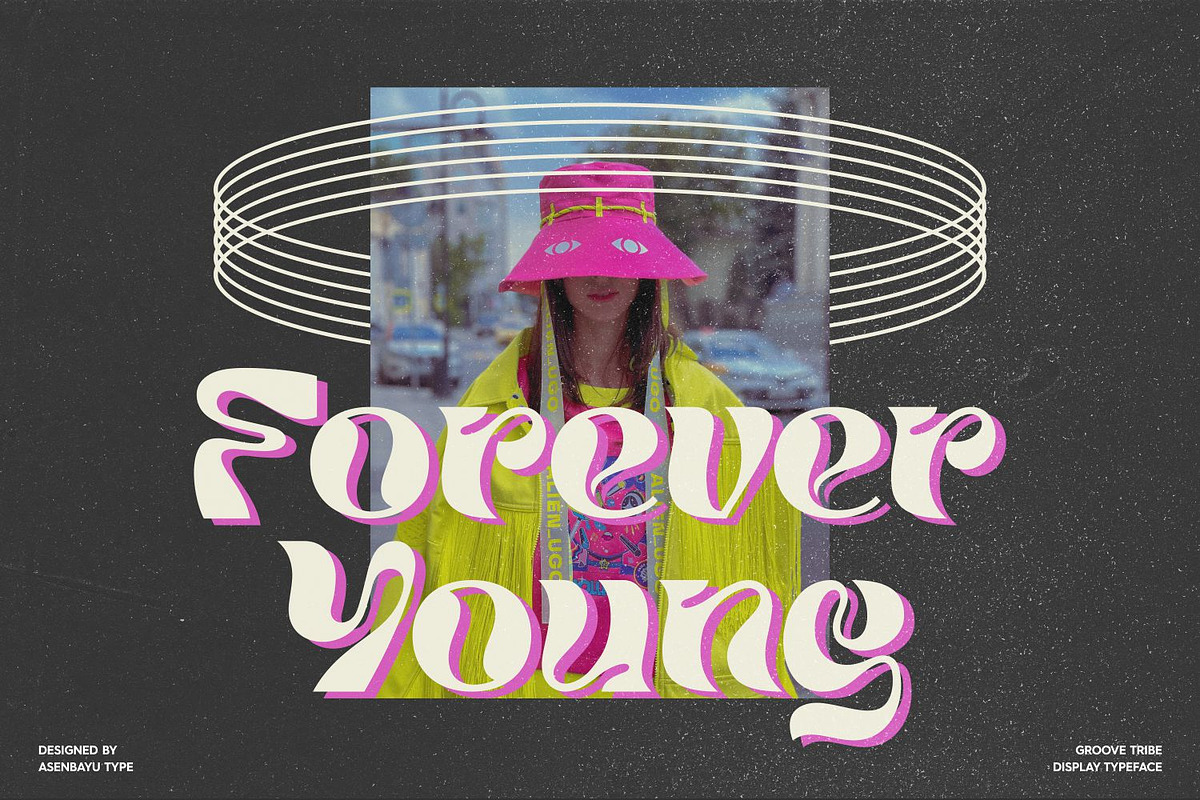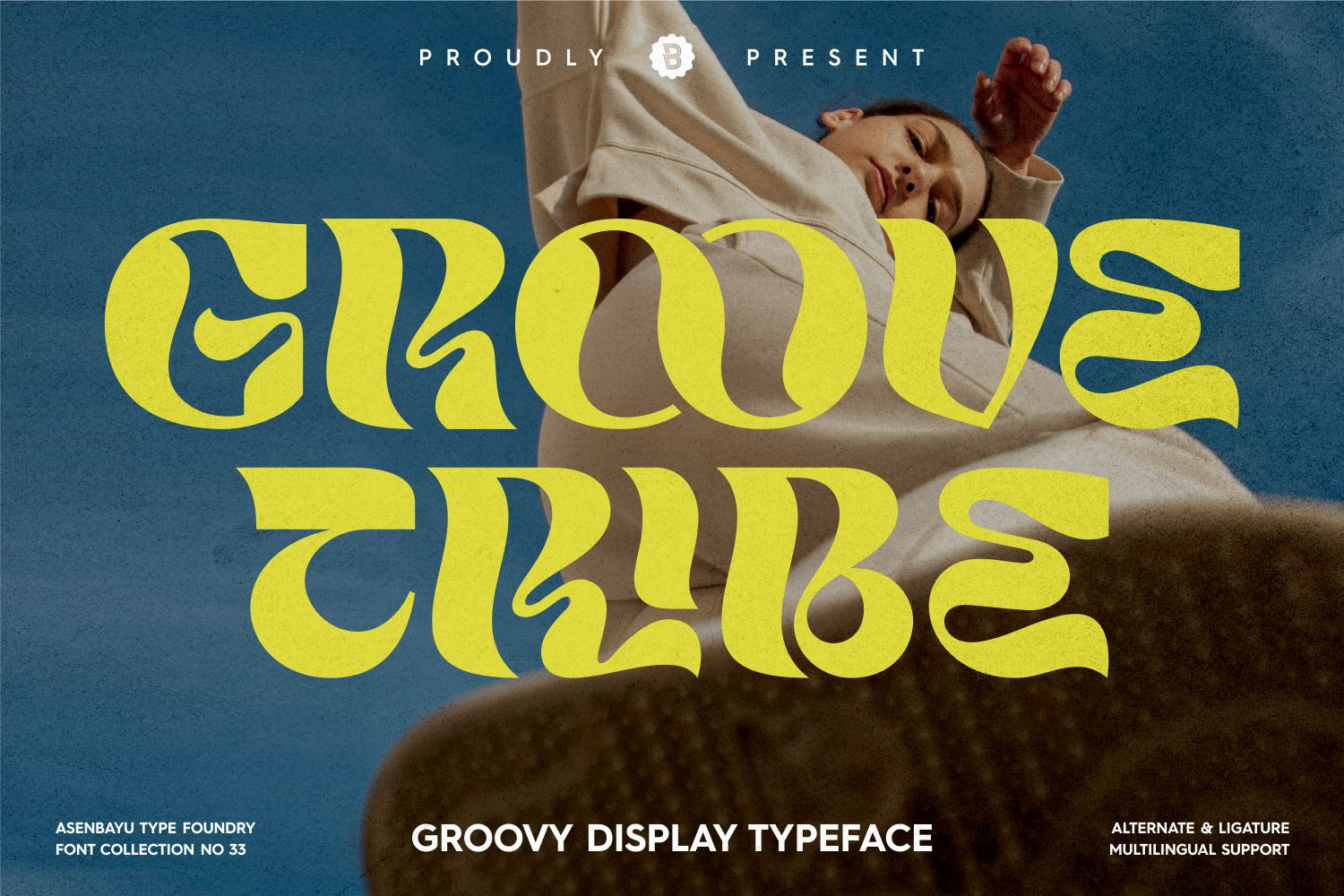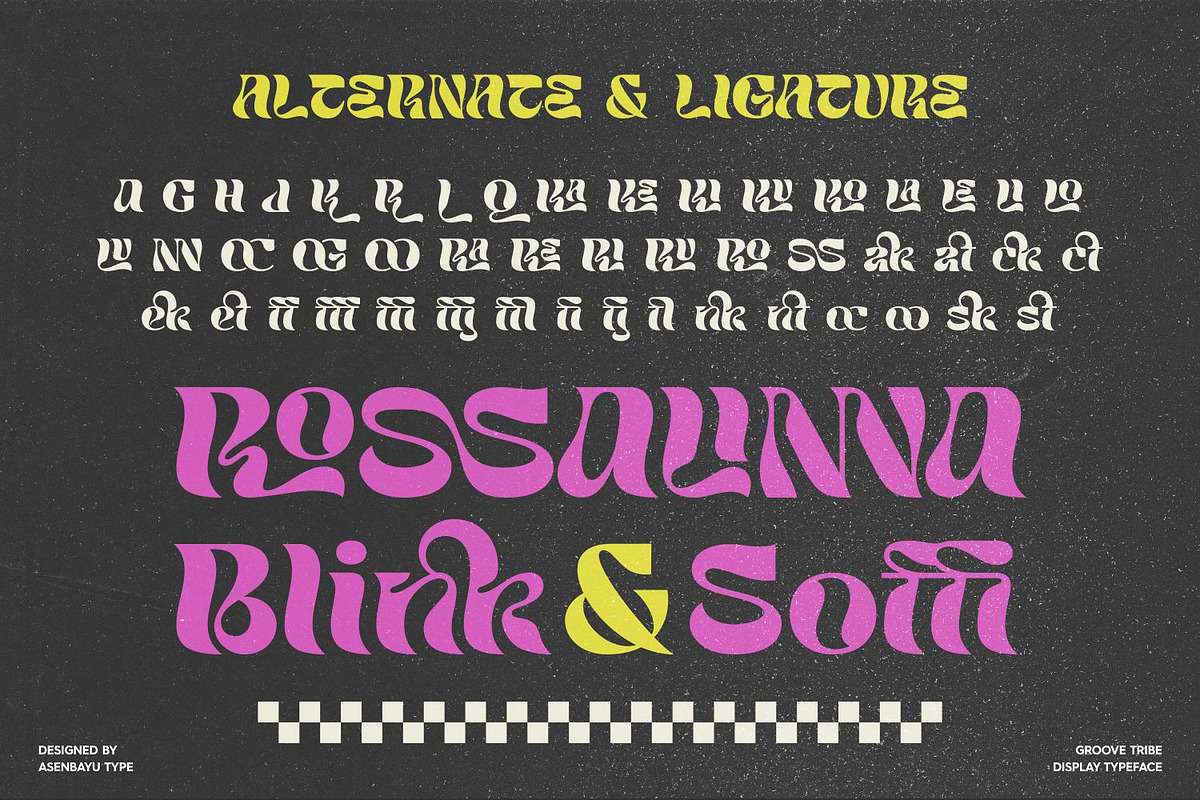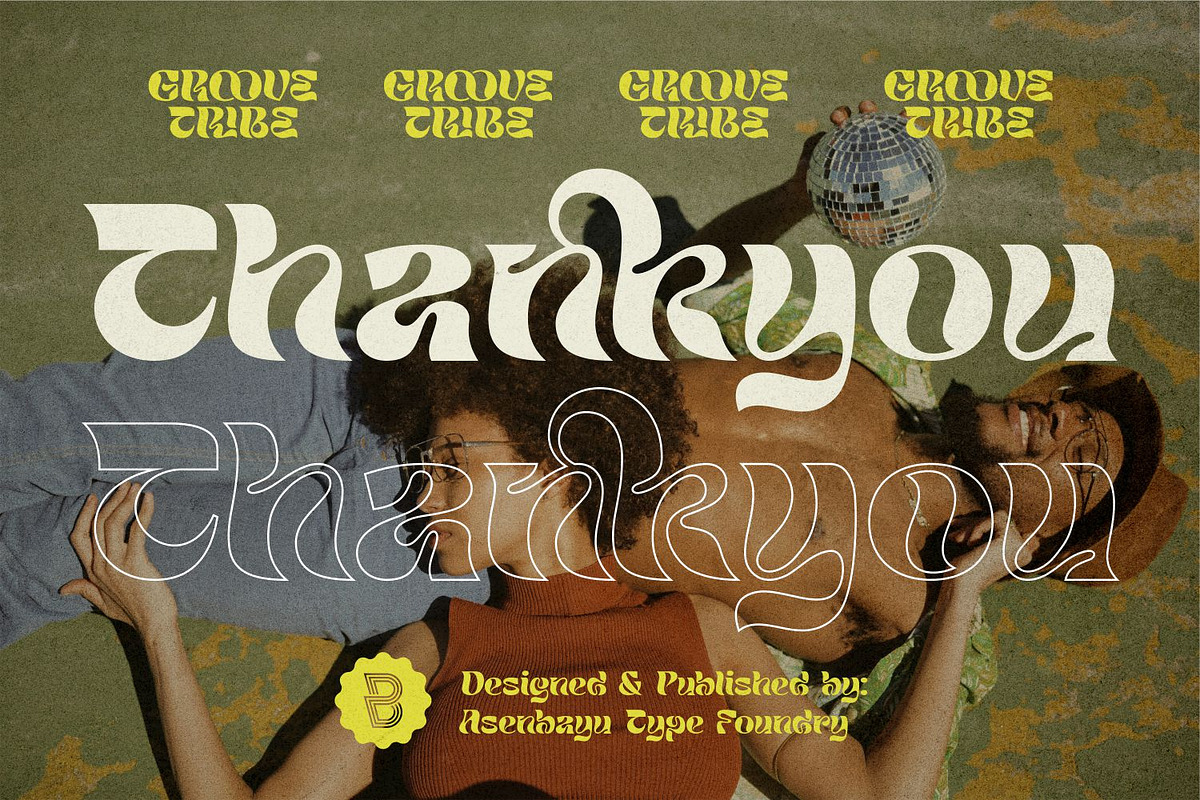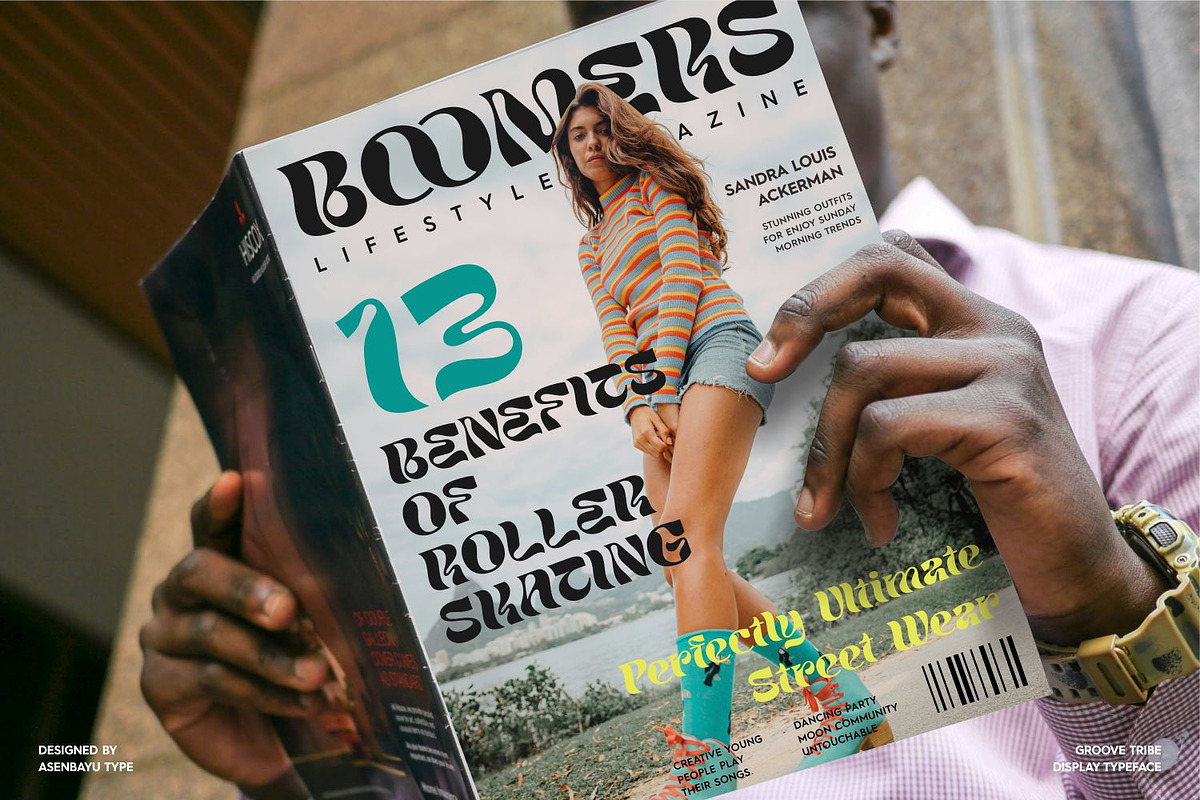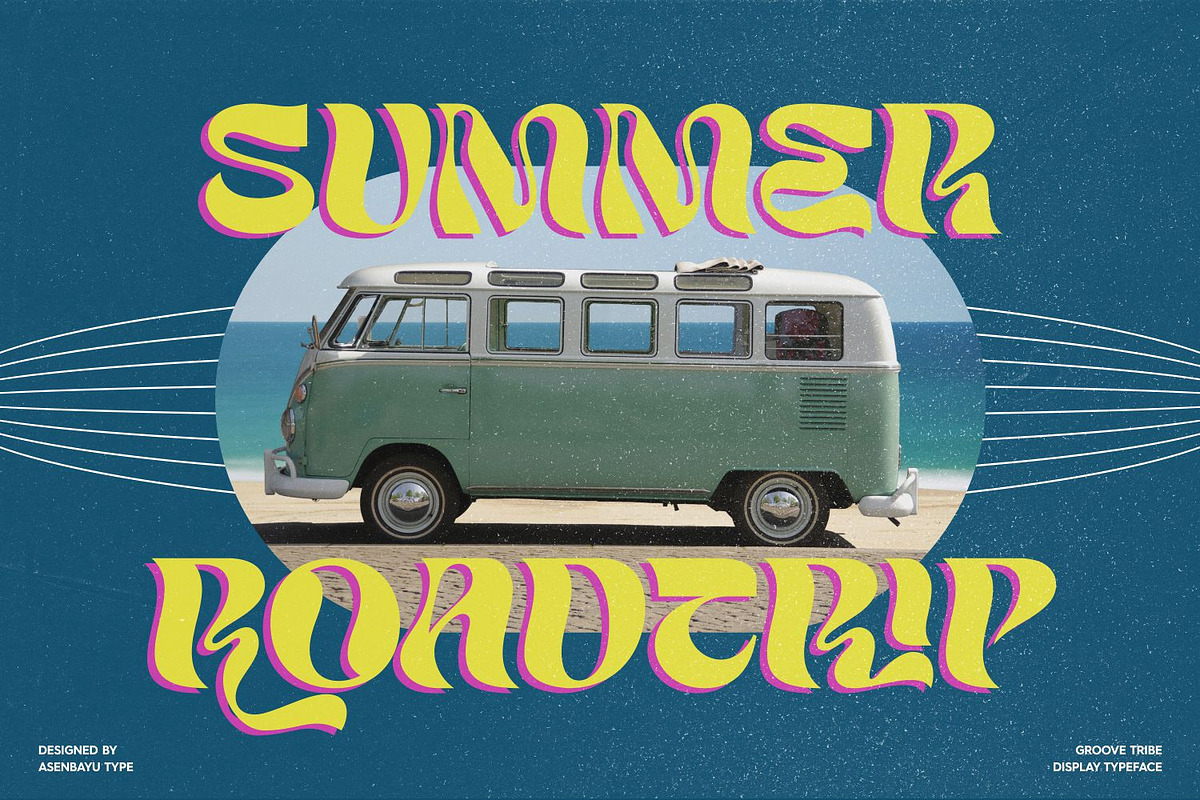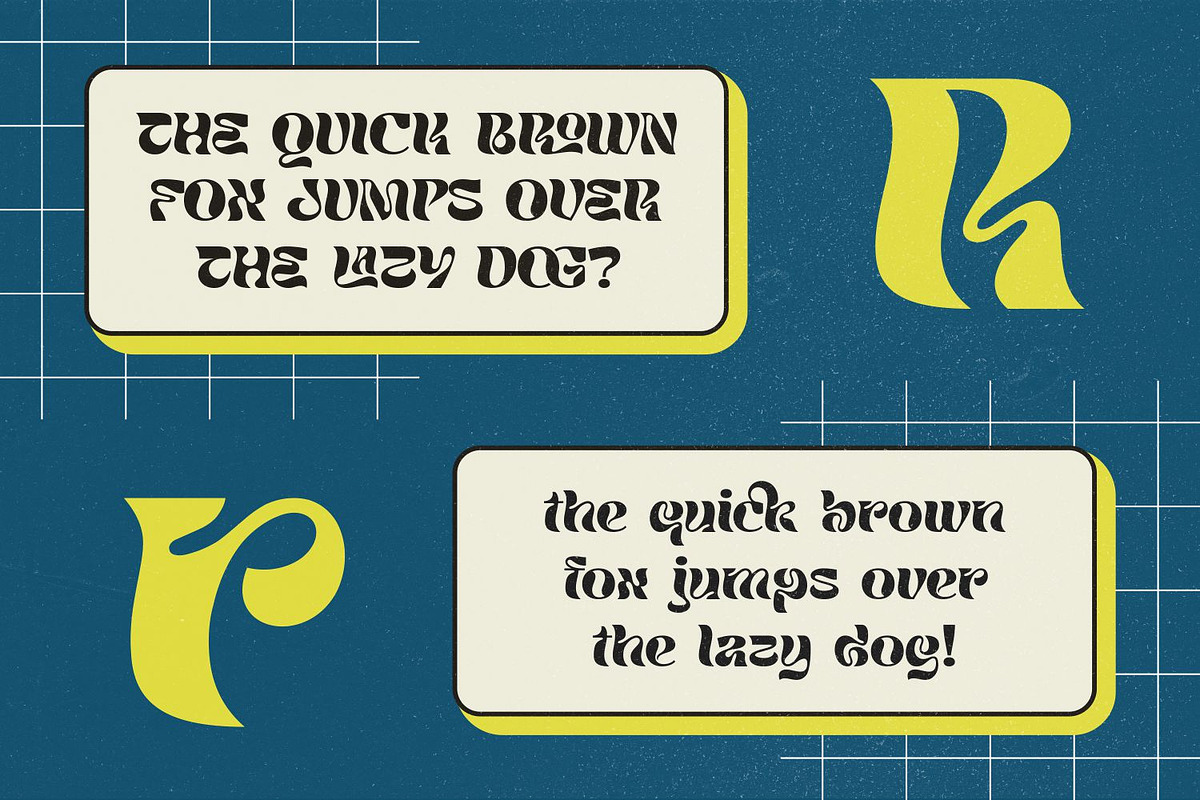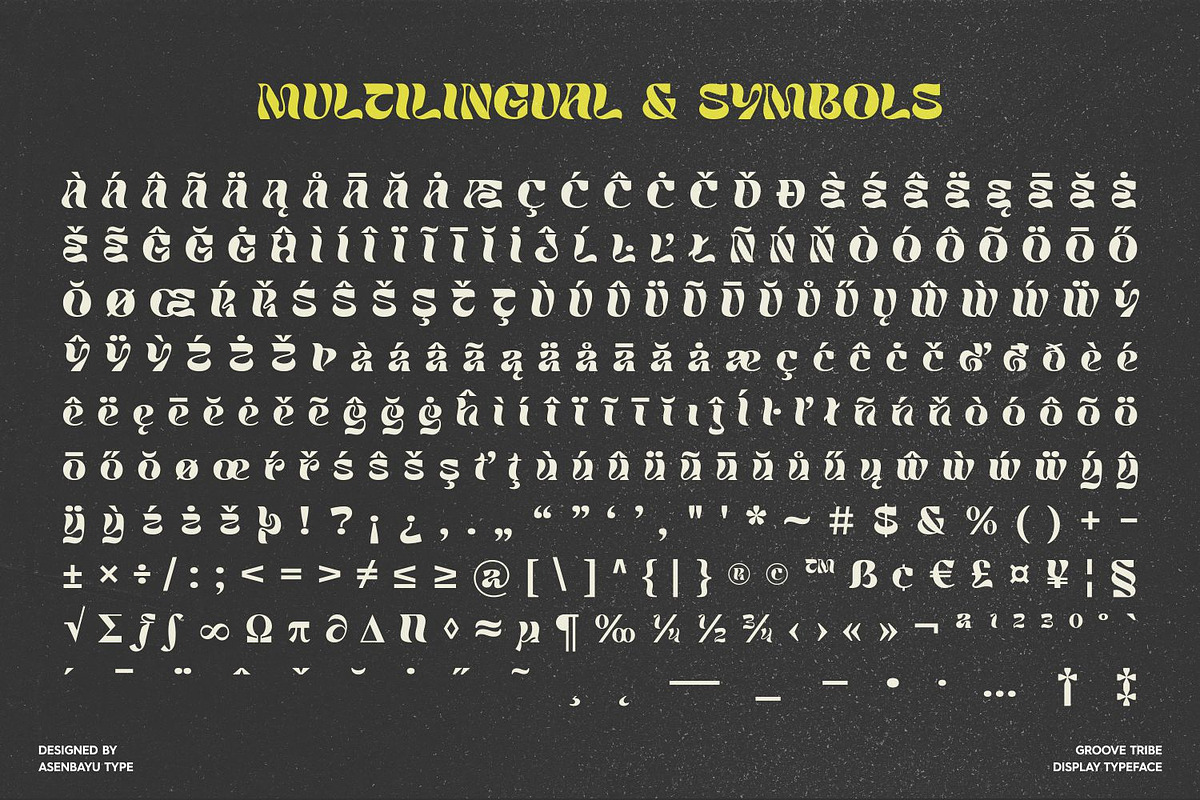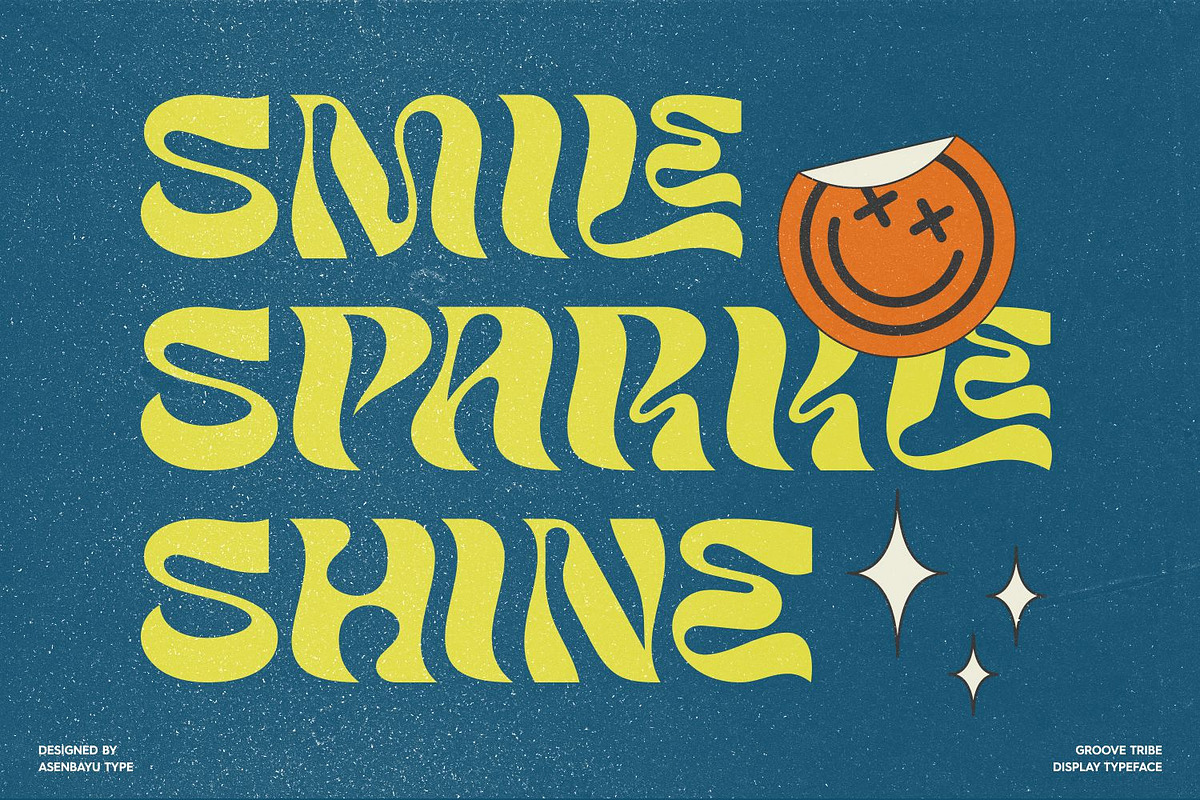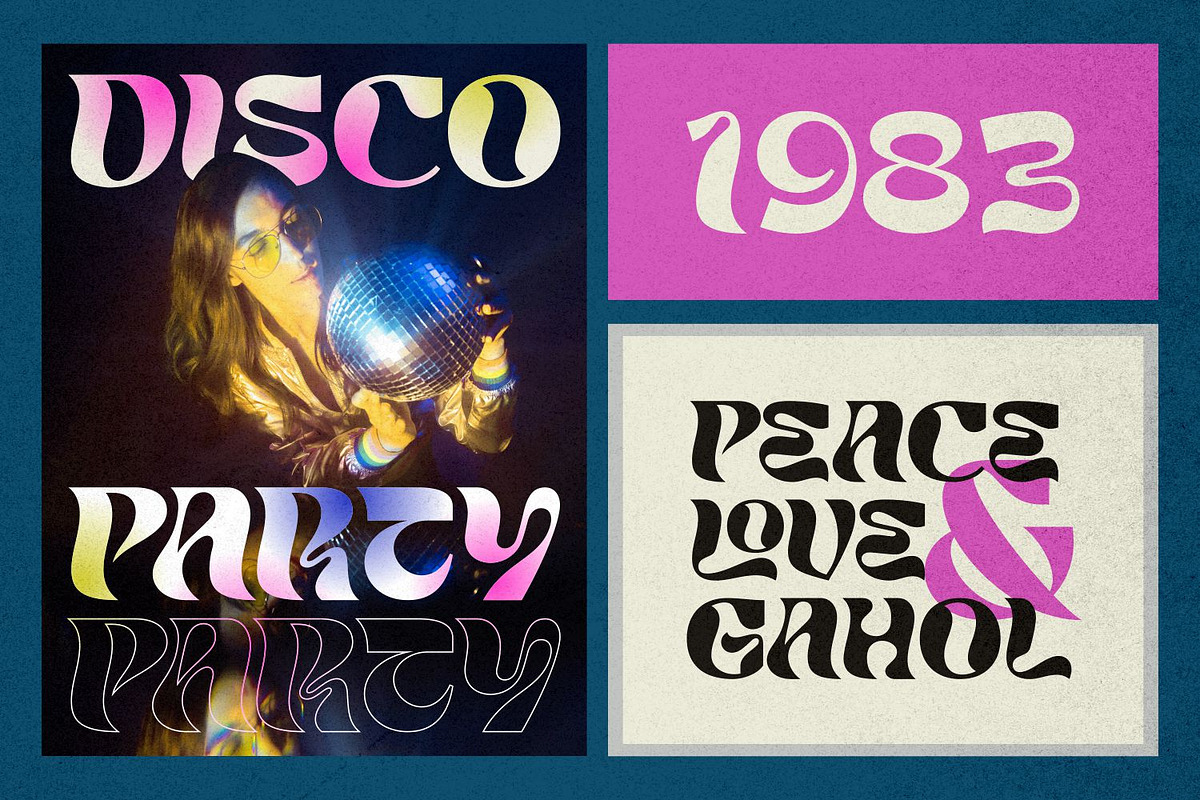
Groove Tribe Font
Groove Tribe is a groovy display font. This font is characterized by a fluid and bold style that gives it a funky and youthful impression. This font perfect for modern retro design. Use it to convey desired logo designs, attractive posters, unique social media designs, fashion and websites.